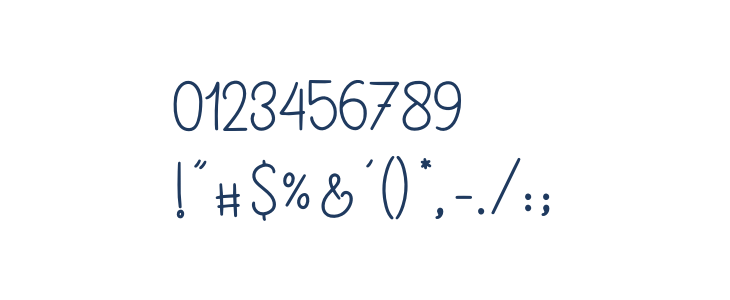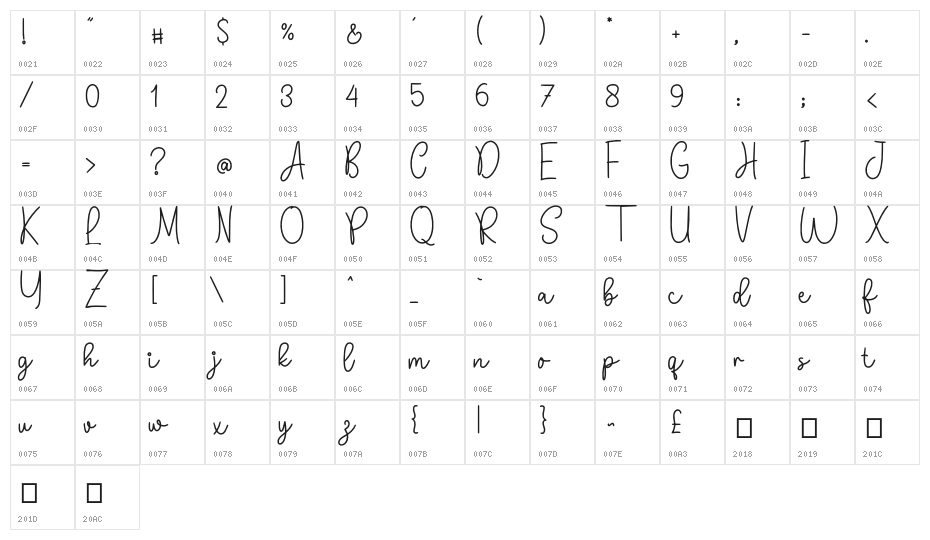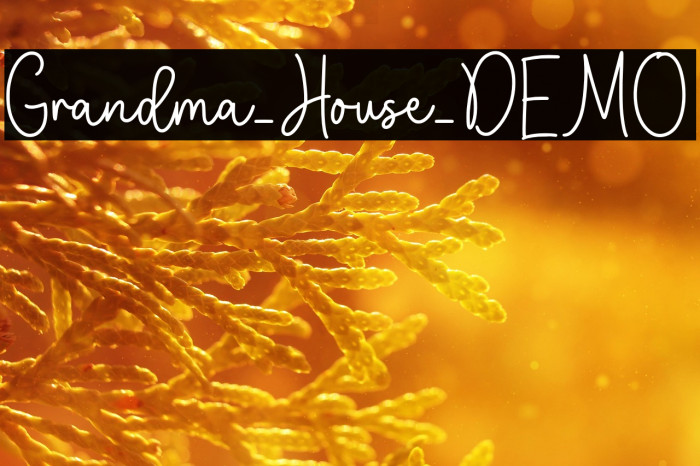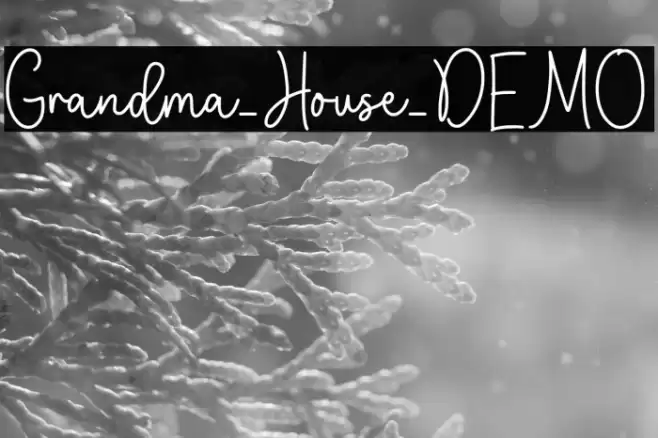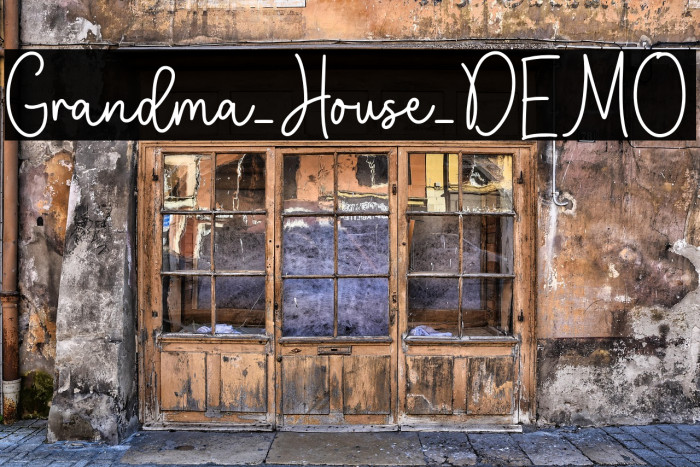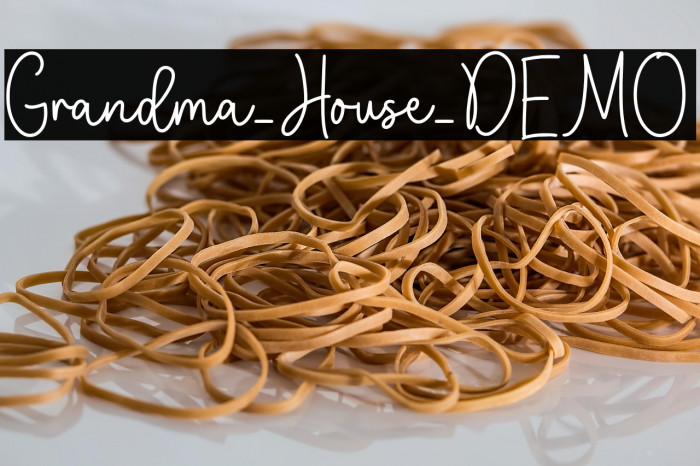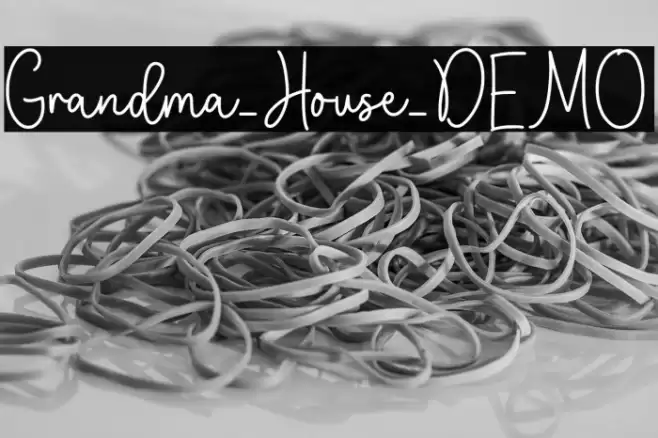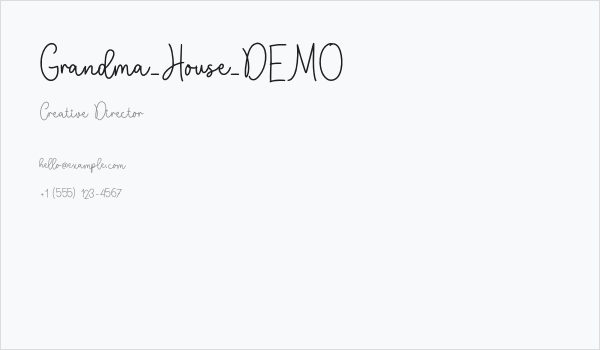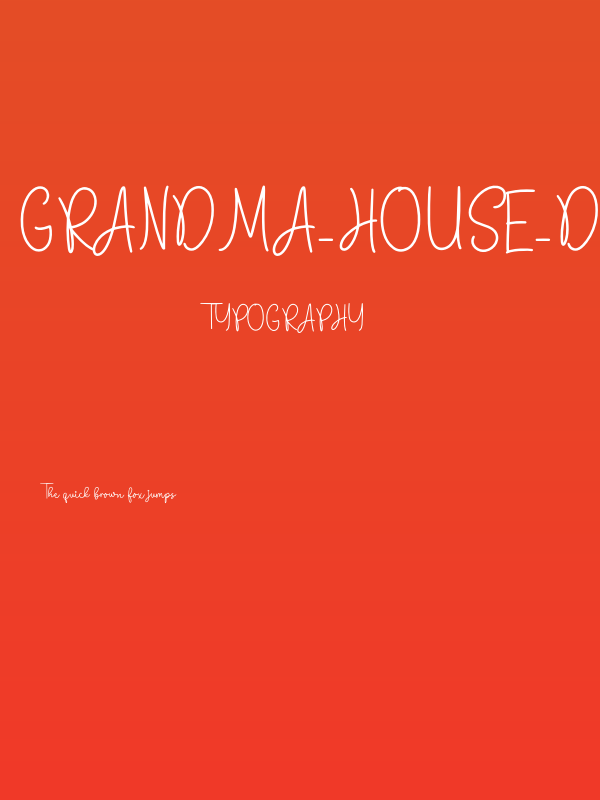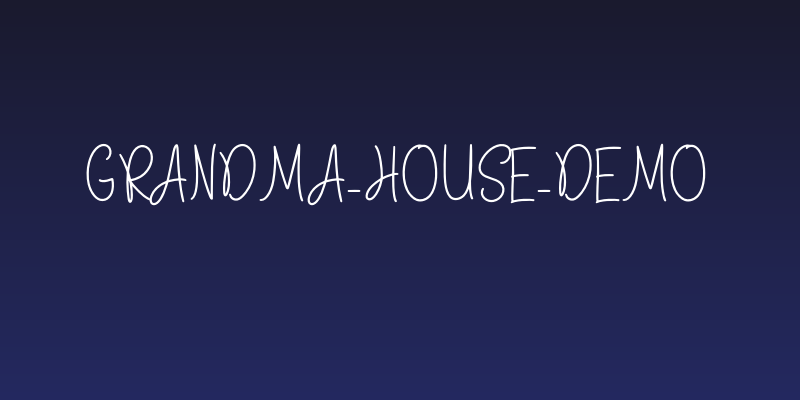
Grandma_House_DEMO Font
Grandma_House_DEMO Description
This font exudes a playful and whimsical charm, characterized by its handwritten style that mimics the fluidity of cursive writing. The uppercase letters are tall and slender, with a slight tilt that adds a dynamic feel. The lowercase letters are more rounded and connected, enhancing the casual and friendly appearance. Numbers and special characters maintain the same playful aesthetic, ensuring consistency throughout. The font's overall look is informal and approachable, making it ideal for projects that require a personal touch.
| Overall Style | Casual, Whimsical |
| Proposed Projects | Ideal for greeting cards, invitations, personal blogs, and children's book illustrations. |